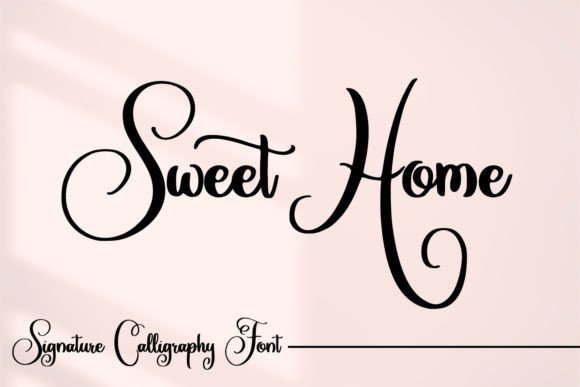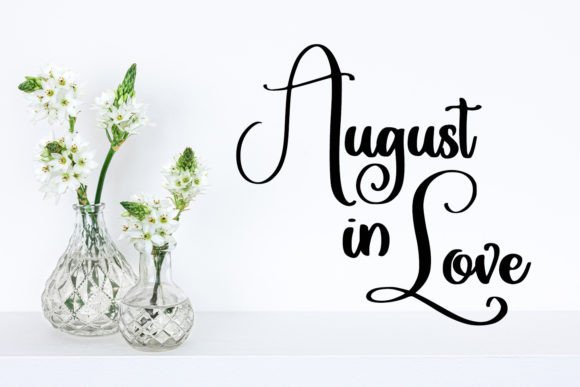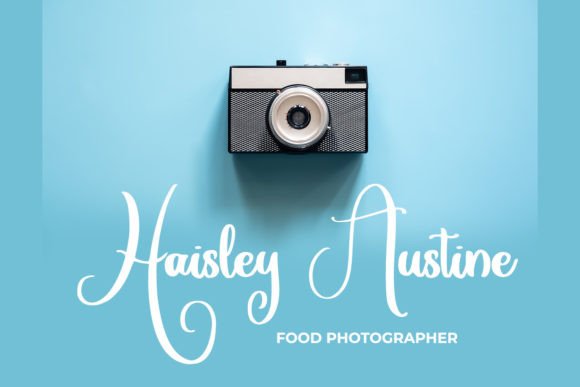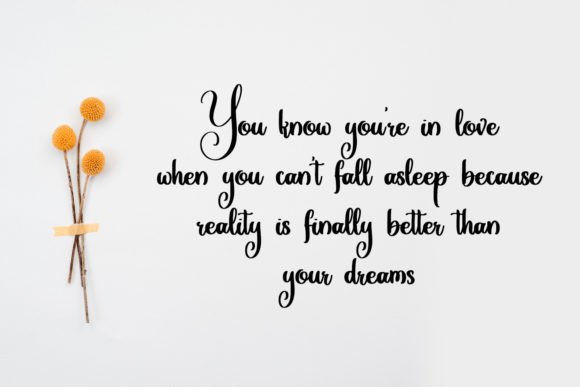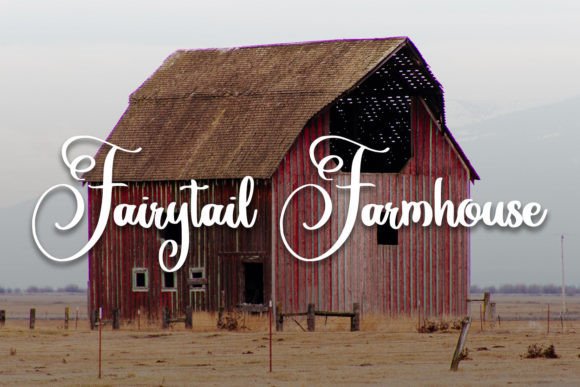
Sweet Home Font
About Sweet Home Font
“Sweet Home” is more than just a font; it’s a signature calligraphy font that adds a touch of sweetness and charm to your creative projects. This cute calligraphy font is versatile, making it an excellent choice for a wide range of applications, including logos, quotes, mugs, tote bag designs, t-shirt designs, cards, banners, social media graphics, and anything your creative heart desires.
The elegance of “Sweet Home” lies in its signature style, showcasing a handcrafted quality that imparts a personal and bespoke touch to your designs. Each stroke is carefully crafted, creating a fluid and graceful script that enhances the visual appeal of your projects.
For logos, “Sweet Home” becomes a distinctive and memorable choice, conveying a sense of sweetness and approachability. Imagine it gracing inspirational quotes, adding a touch of warmth and positivity to your messages. Picture it on mugs or tote bags, creating delightful and eye-catching designs that stand out.
The versatility of “Sweet Home” shines through as it seamlessly adapts to various design elements. From t-shirts to banners, this font brings a cohesive and charming aesthetic to your creations. Its cute calligraphy style makes it particularly well-suited for projects that aim to evoke feelings of comfort and joy.
Social media graphics benefit from the playful yet elegant nature of “Sweet Home.” Whether you’re crafting posts, stories, or banners for your online presence, this font becomes a key element in creating a visually cohesive and appealing brand identity.
In essence, “Sweet Home” is not just a calligraphy font; it’s a design tool that infuses sweetness and charm into your projects. Let it be the signature touch that makes your creations stand out and evoke a sense of warmth and familiarity. Whether you’re designing for print or digital media, “Sweet Home” is your go-to font for adding a delightful and personal flair to every project.